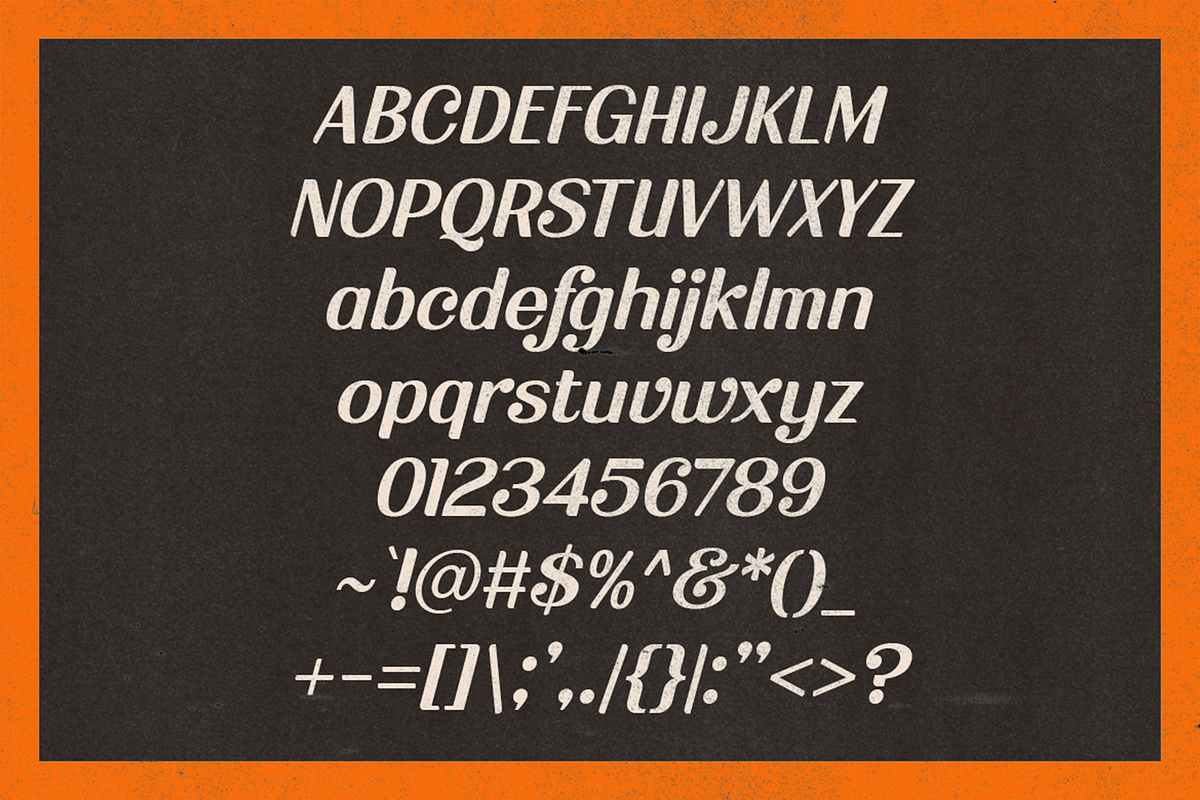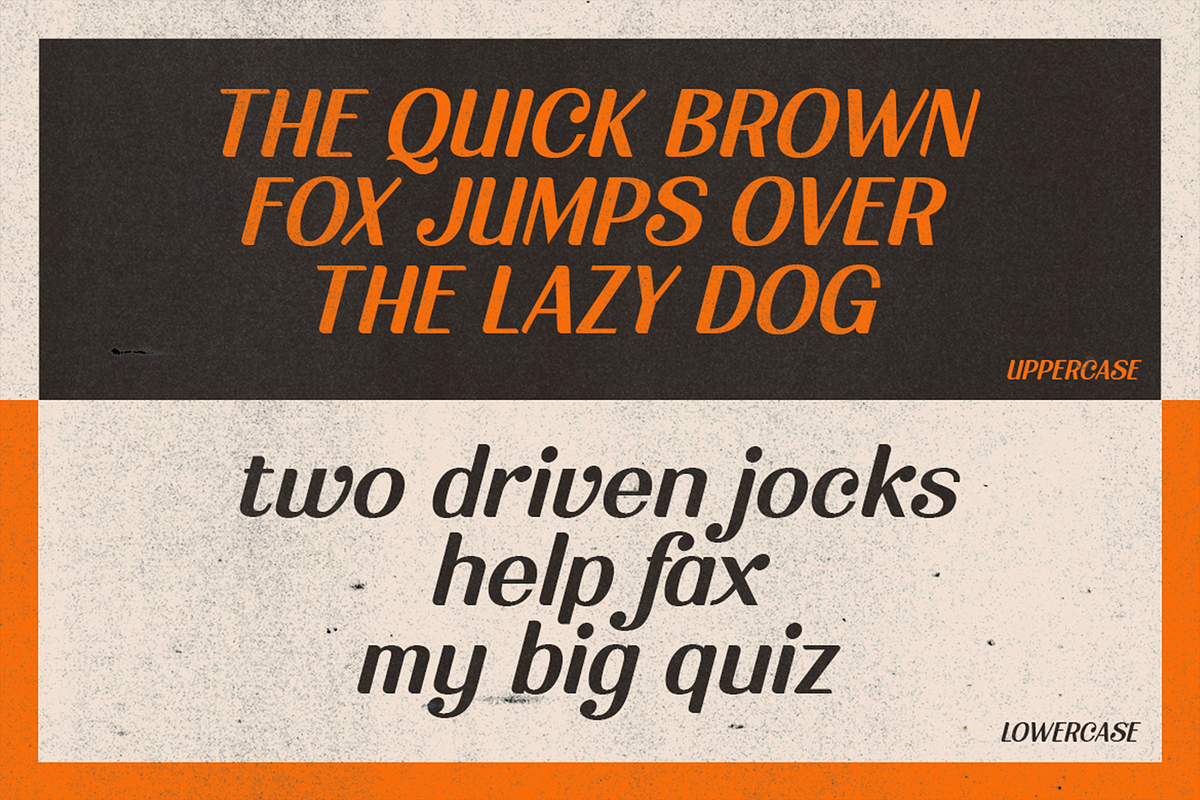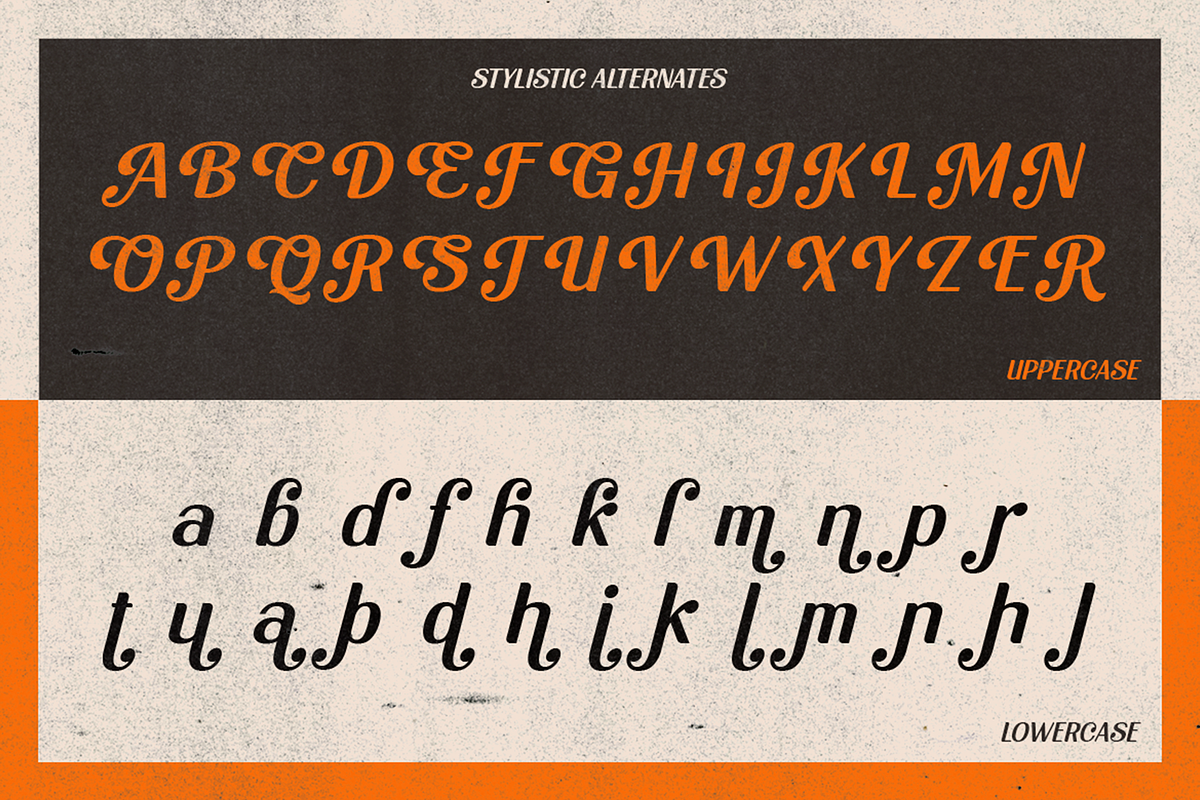
Riblate - Vintage Casual Fonts
Riblate is a vintage retro pop casual font. Unlike the formal and stiff vintage-based font, this one comes with a slight casual touch. Kinda pops a little bit, to unleash the youngster's spirit in your visual presence.
Perfectly fit for a logo, branding, signage, poster, magazine, books, cover, badges and emblems, clothing, apparel, merchandise, movie title, serials, and many more.